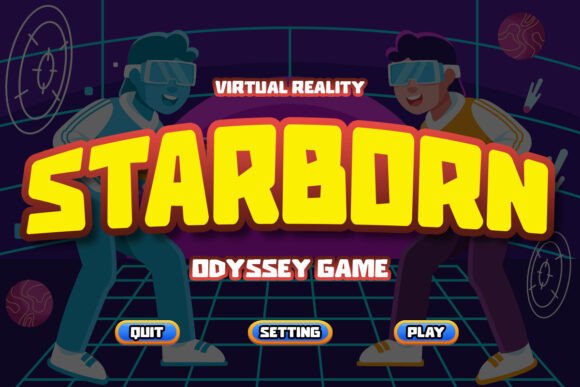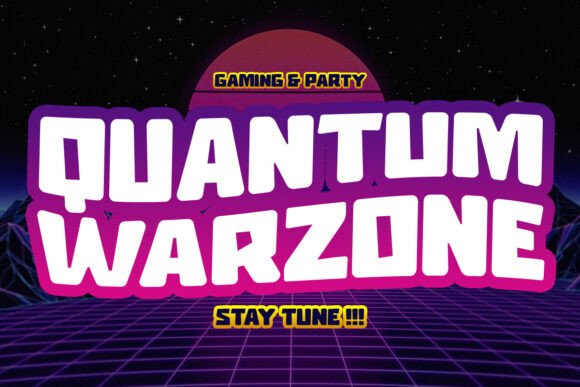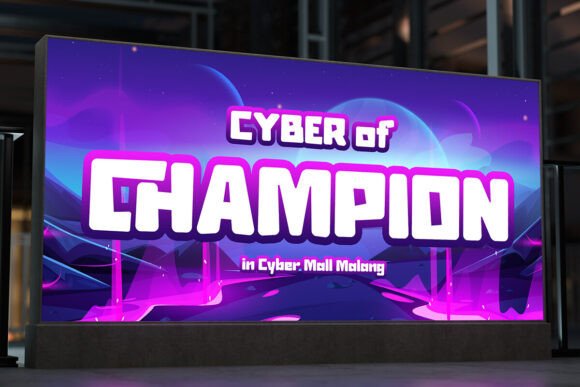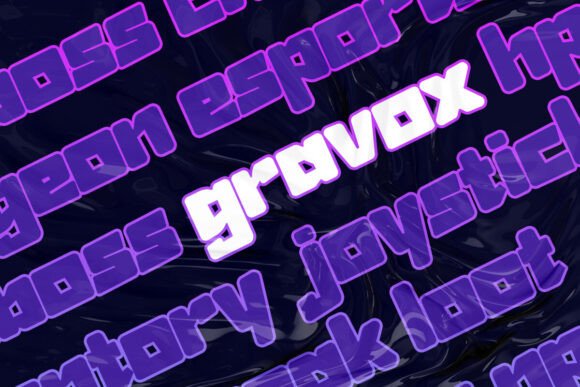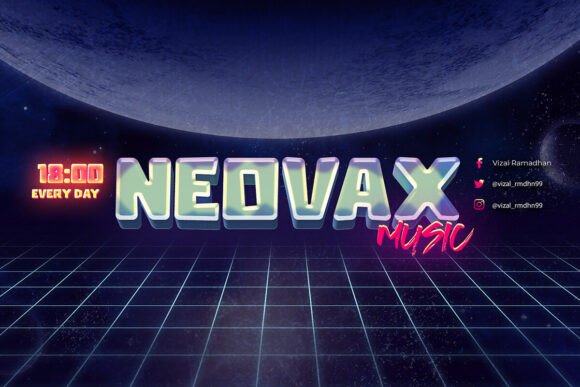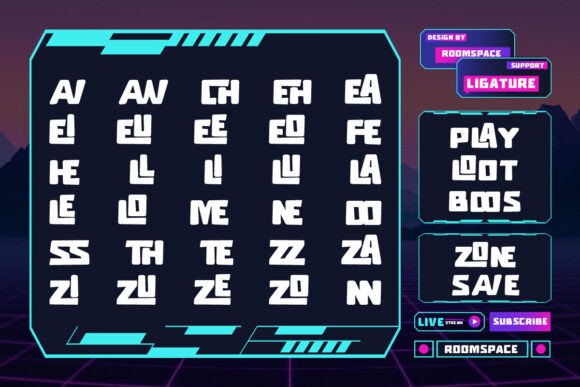
Introducing Gravox Font: Revolutionizing Gaming Typography
In the ever-evolving world of gaming, typography plays a crucial role in creating an immersive experience. A font can make or break the aesthetic of a game, and that’s where Gravox comes in – a bold and dynamic typeface designed specifically for gamers, developers, and creative minds. Inspired by the nostalgia of arcade classics and the sleekness of modern futuristic displays, Gravox is poised to become the go-to font for game titles, posters, UI design, and branding.
The Birth of Gravox
Gravox is more than just a font – it’s a fusion of retro charm and modern sophistication. Its sleek sans-serif style, versatile variable features, and playful yet sharp letterforms make it the perfect choice for designers and crafters looking to add a high-energy, digital look to their projects. Whether you’re designing for kids’ games, retro-inspired visuals, or high-tech branding, Gravox delivers fun, readability, and impact.
Design Features of Gravox
Gravox boasts a range of design features that set it apart from other fonts. Its variable font capabilities allow for a range of weights and styles, making it incredibly versatile for various design applications. The font’s letterforms are carefully crafted to be both playful and sharp, ensuring that they stand out in any context. Additionally, Gravox includes a range of glyphs and ligatures, providing designers with a rich set of options for creative expression.
The Future of Gaming Typography
As gaming continues to evolve, typography will play an increasingly important role in shaping the gaming experience. Gravox is at the forefront of this evolution, offering a font that is both nostalgic and futuristic. Its bold and dynamic design makes it perfect for game titles, posters, and UI design, while its versatility ensures that it can be used across a range of applications.
Why Choose Gravox?
So, why choose Gravox over other fonts? Here are just a few reasons:
- Unique Design: Gravox boasts a unique design that blends retro charm with modern sophistication.
- Versatility: The font’s variable features and range of weights and styles make it incredibly versatile.
- Playful yet Sharp: Gravox’s letterforms are both playful and sharp, ensuring that they stand out in any context.
- Rich Set of Glyphs and Ligatures: The font includes a range of glyphs and ligatures, providing designers with a rich set of options for creative expression.
Applications of Gravox
Gravox is perfect for a range of design applications, including:
- Game Titles: Gravox is ideal for game titles, adding a bold and dynamic touch to any game.
- Posters: The font’s retro charm and modern sophistication make it perfect for posters and other marketing materials.
- UI Design: Gravox’s versatility and range of weights and styles make it well-suited for UI design.
- Branding: The font’s unique design and playful yet sharp letterforms make it perfect for branding and logo design.
In conclusion, Gravox is a game-changing font that is poised to revolutionize gaming typography. Its unique design, versatility, and playful yet sharp letterforms make it the perfect choice for designers and crafters looking to add a high-energy, digital look to their projects. Whether you’re designing for kids’ games, retro-inspired visuals, or high-tech branding, Gravox delivers fun, readability, and impact. So why wait? Download Gravox today and experience the future of gaming typography.